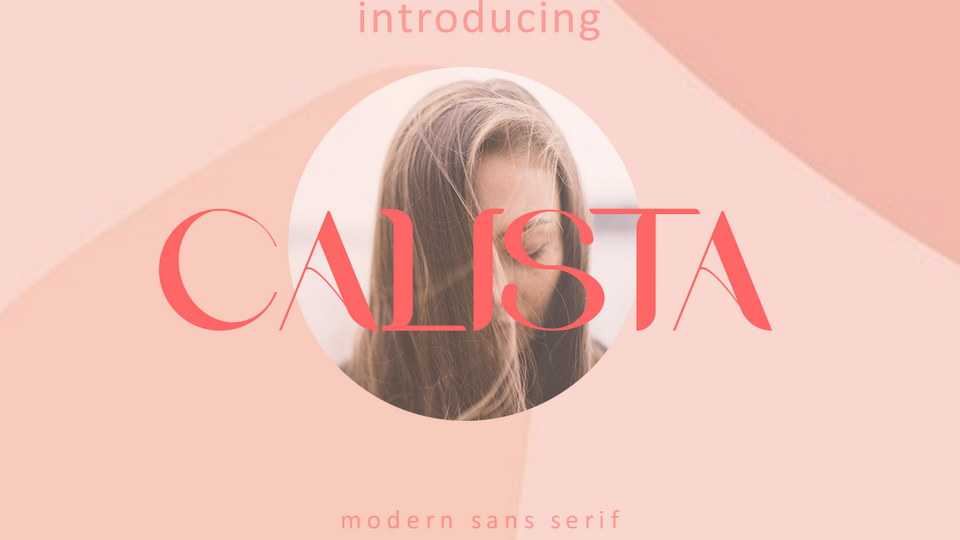
Download Calista font, a trendy and cool sans serif font. No matter the topic, Calista will be an incredible asset to your library, as it has the potential to elevate any creation.
Designer: Anggun.studio